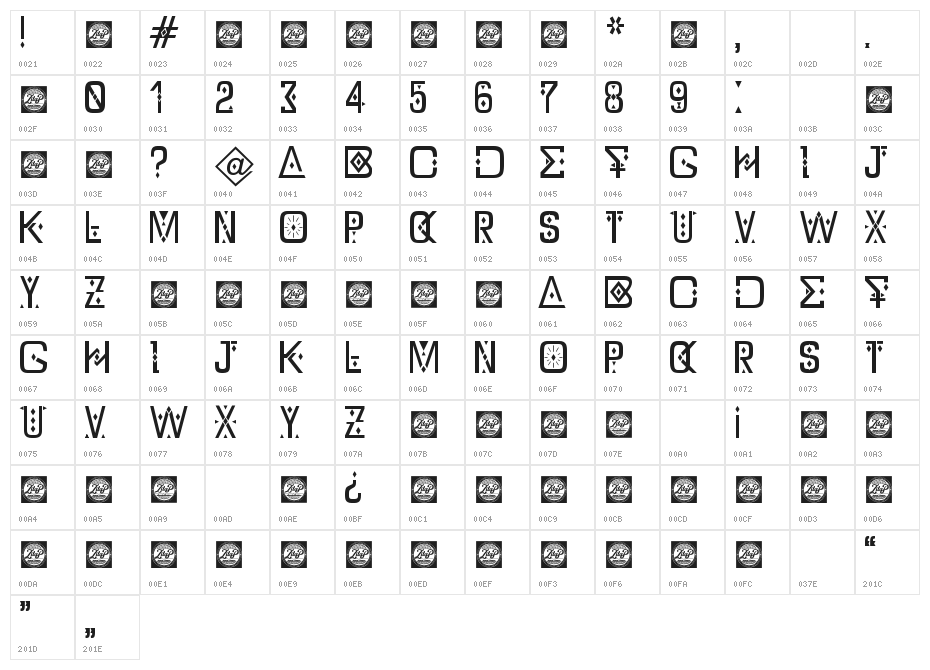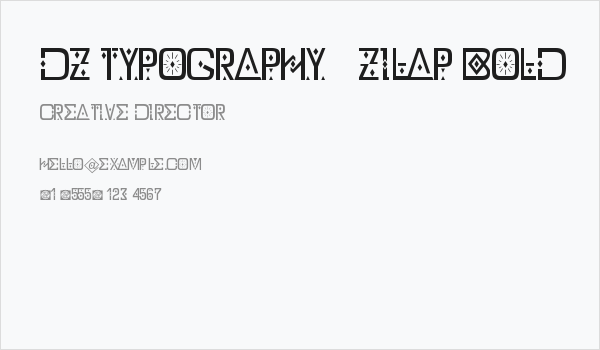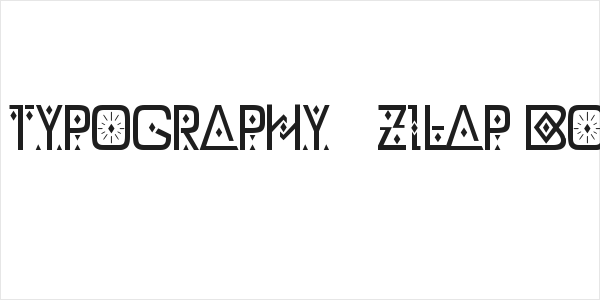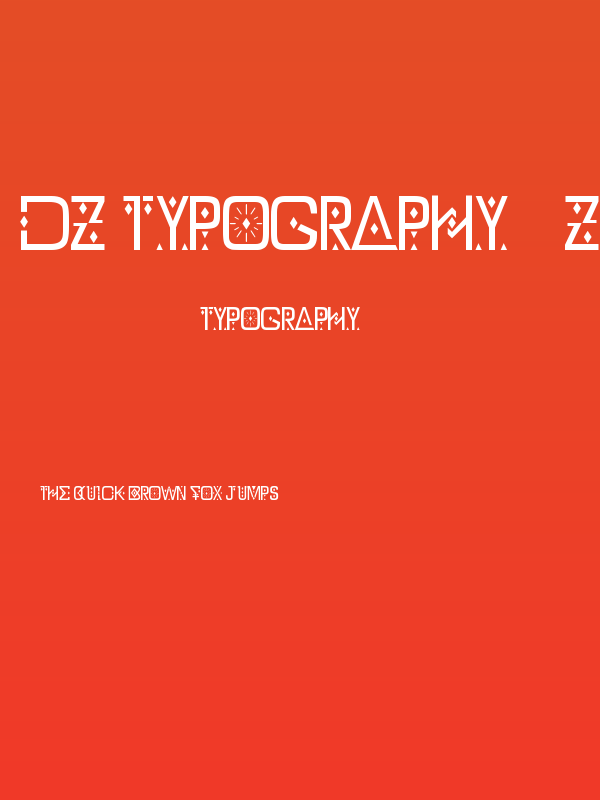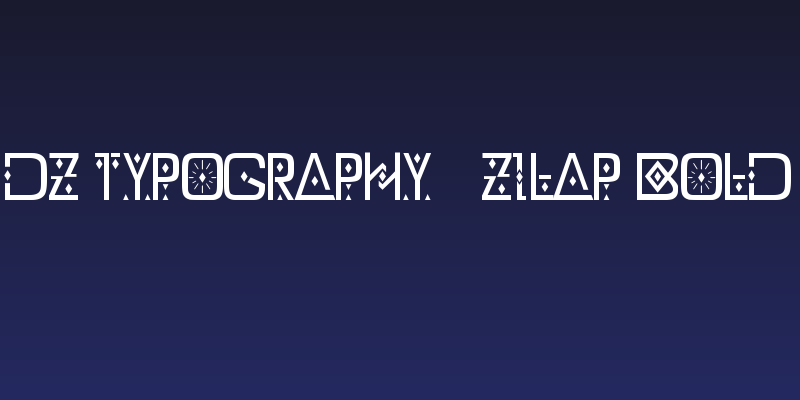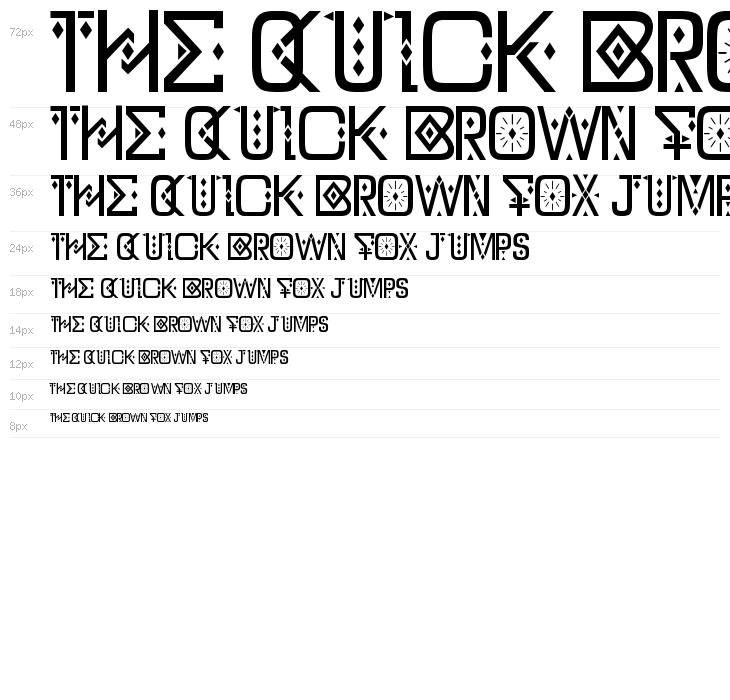
DZ Typography - Zilap Bold Font
DZ Typography - Zilap Bold Description
This font features a bold and geometric design with a distinct decorative style. Each character is crafted with unique cutouts and angular shapes, giving it a futuristic and edgy appearance. The uppercase letters are particularly striking, with intricate patterns that create a sense of movement and dynamism. The numbers and special characters maintain this theme, ensuring consistency across the entire typeface. The overall aesthetic is both modern and artistic, making it suitable for projects that require a standout visual impact.
| Proposed Projects | Ideal for branding, posters, album covers, and any design needing a futuristic and artistic touch. |